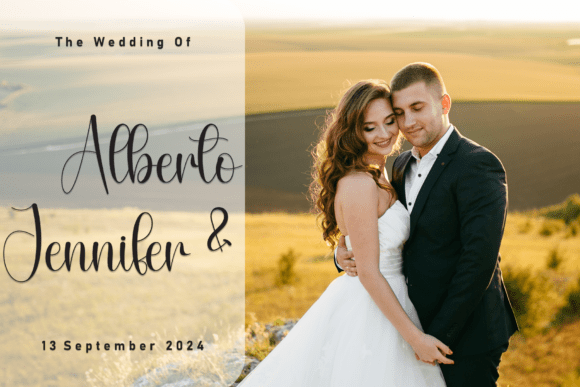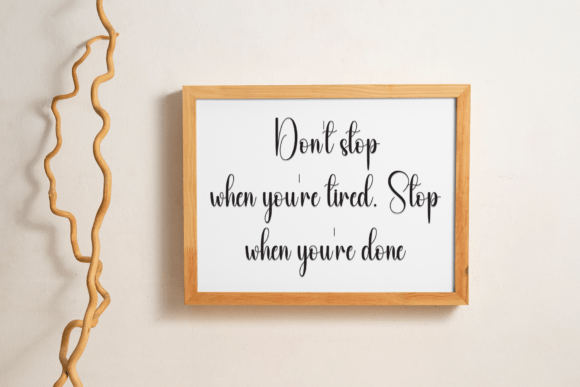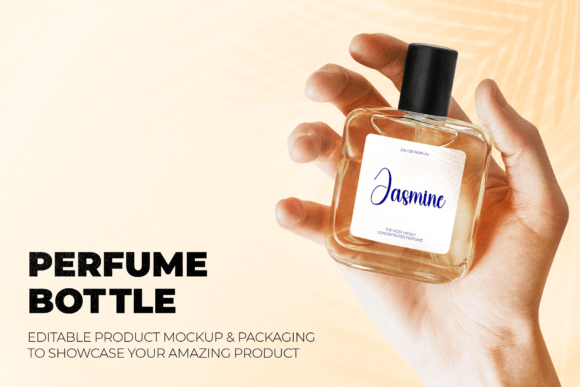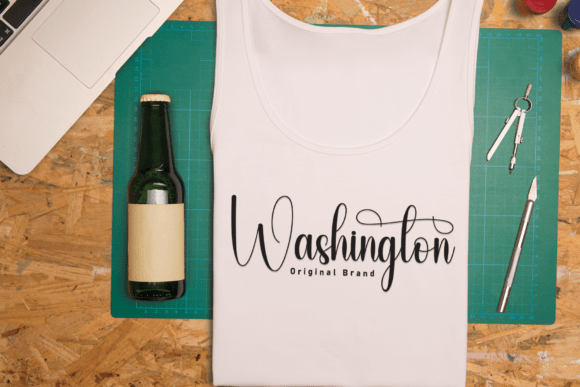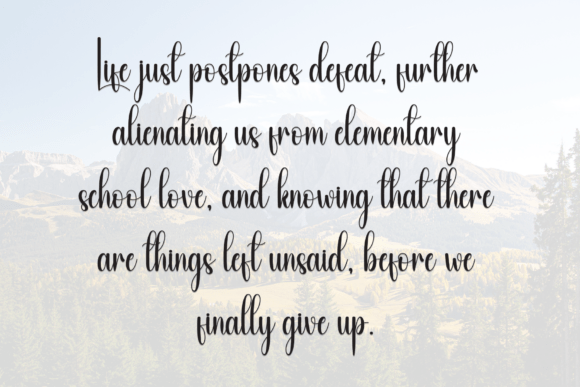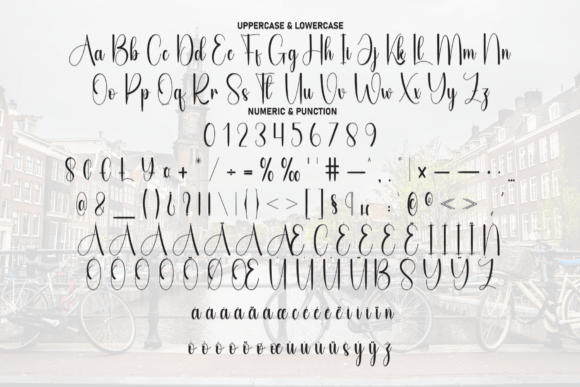
Discover the Elegance of Amsterdam Font: Elevate Your Designs with a Touch of Sophistication
Are you looking for a font that embodies the perfect blend of elegance and playfulness? Look no further than the Amsterdam Font. This stylish handwritten script font is designed to capture the essence of sophistication and charm, making it an ideal choice for designers and crafters seeking to add a personal touch to their projects.
The Characteristics of Amsterdam Font
Amsterdam Font boasts flowing curves and a natural rhythm that sets it apart from other fonts. Its graceful design brings warmth and sophistication to any project, making it perfect for a variety of applications, including invitations, branding, and social media. The font’s unique characteristics include:
- Handwritten script style: Amsterdam Font features a beautiful, handwritten script style that adds a personal touch to any design.
- Flowing curves: The font’s flowing curves create a natural rhythm that makes it easy to read and visually appealing.
- Elegant and playful: Amsterdam Font strikes the perfect balance between elegance and playfulness, making it suitable for a wide range of projects.
Uses of Amsterdam Font
Amsterdam Font is a versatile font that can be used in various design projects, including:
- Invitations: Add a touch of elegance and sophistication to your invitations, whether it’s a wedding, birthday, or baby shower.
- Branding: Use Amsterdam Font to create a unique and memorable brand identity that sets you apart from the competition.
- Social media: Elevate your social media posts with a font that adds a personal and charming touch to your content.
- Stationery: Create beautiful stationery, such as letterheads, business cards, and thank-you cards, with Amsterdam Font.
Why Choose Amsterdam Font?
With so many fonts available, why choose Amsterdam Font? Here are a few reasons why designers and crafters love this font:
- Unique and creative: Amsterdam Font offers a fresh and creative take on traditional script fonts.
- Easy to read: The font’s flowing curves and natural rhythm make it easy to read, even at small sizes.
- Customizable: Amsterdam Font can be customized to fit your project’s specific needs, making it a versatile choice.
Tips for Using Amsterdam Font
To get the most out of Amsterdam Font, here are a few tips to keep in mind:
- Pair with complementary fonts: Pair Amsterdam Font with complementary fonts to create a visually appealing contrast.
- Use it sparingly: Use Amsterdam Font sparingly to add a touch of elegance and sophistication to your design.
- Experiment with colors: Experiment with different colors to find the perfect match for your project.
Amsterdam Font is a stylish and elegant handwritten script font that adds a personal touch to any design project. With its flowing curves, natural rhythm, and unique characteristics, it’s perfect for designers and crafters seeking to elevate their designs with a touch of sophistication. Whether you’re creating invitations, branding, or social media content, Amsterdam Font is a versatile choice that’s sure to impress.